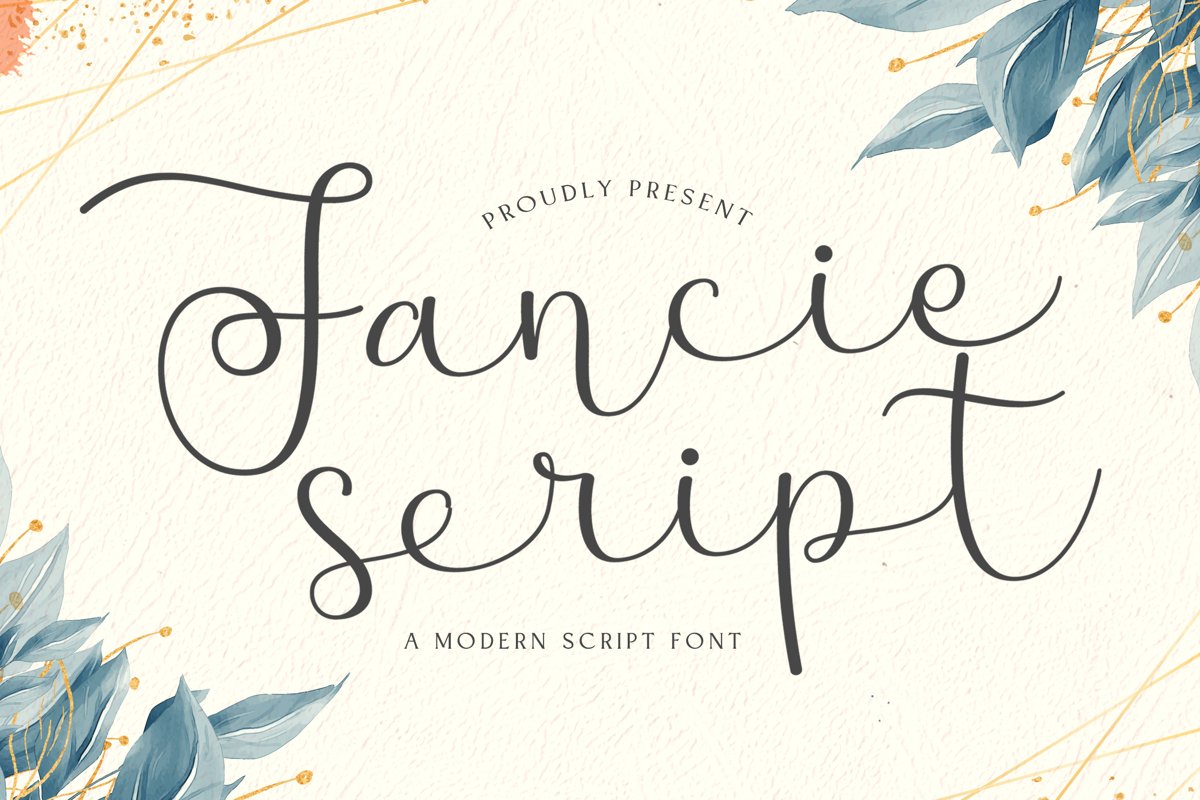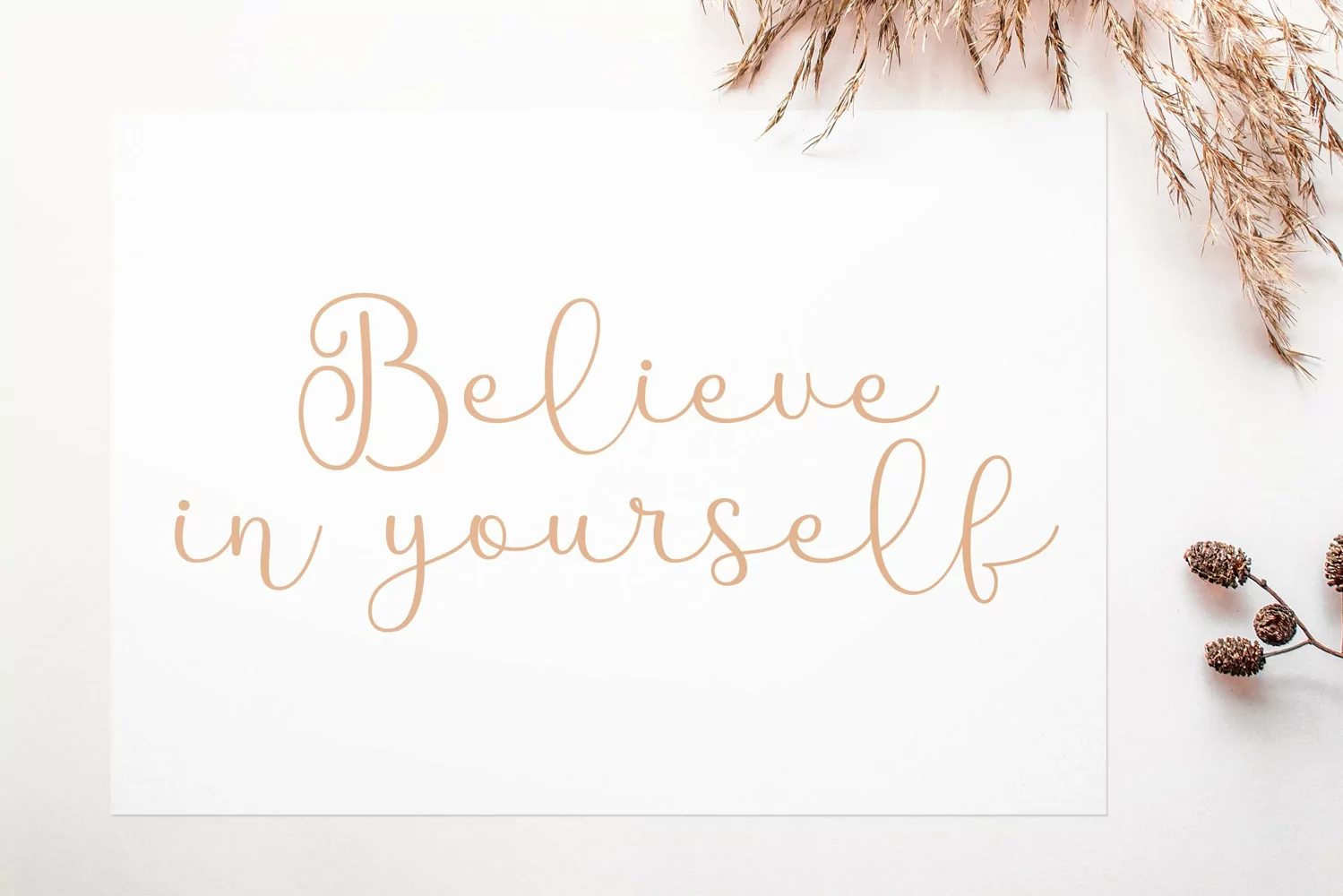
Fancie is a modern script typeface. Perfect for display, poster, quotes, wedding needs, florist needs, business card, logo, logotype, signature, invitation card, crafting needs, and many more.